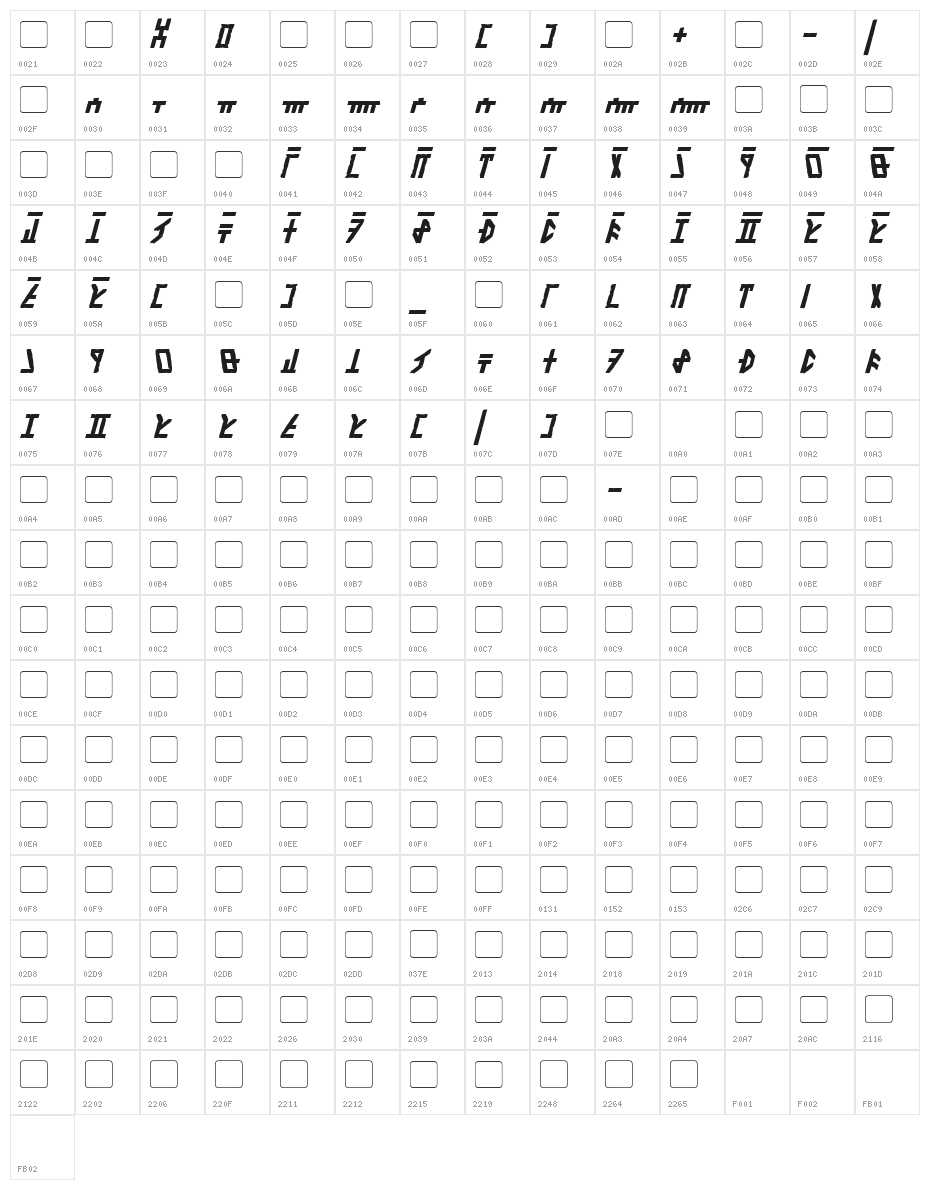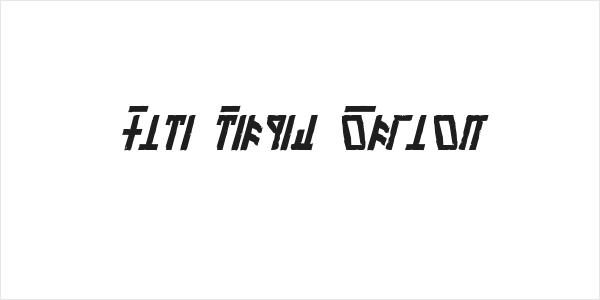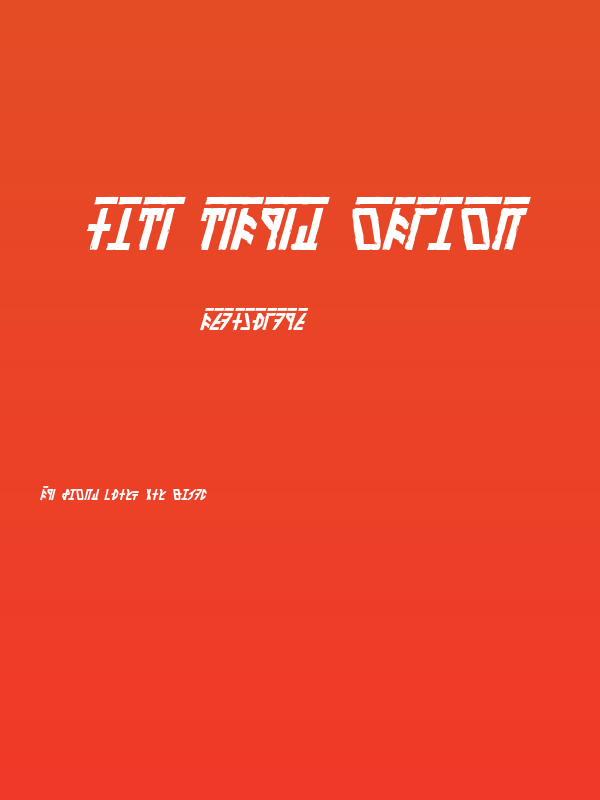
Olde Dethek Italic Font
Olde Dethek Italic Description
This font features a distinctive, angular design reminiscent of ancient runic scripts. The characters are bold and italicized, with sharp edges and a slightly condensed form. The style evokes a sense of mystery and antiquity, suitable for fantasy-themed projects. The uppercase and lowercase letters maintain a consistent style, with numerals and special characters following the same angular motif. The overall appearance is both decorative and legible, making it ideal for creative and thematic uses.
| Use Case | Headlines, Logos, Thematic Designs |
| Proposed Projects | Ideal for fantasy-themed designs, game titles, book covers, and decorative signage. |